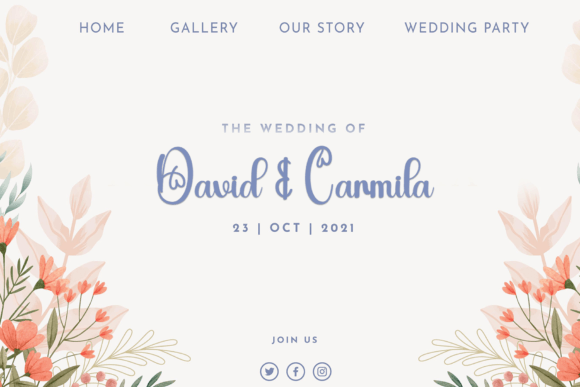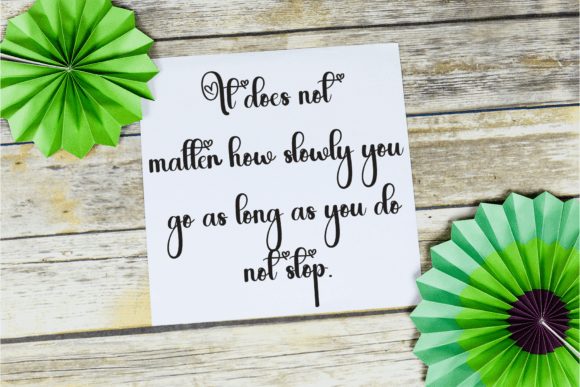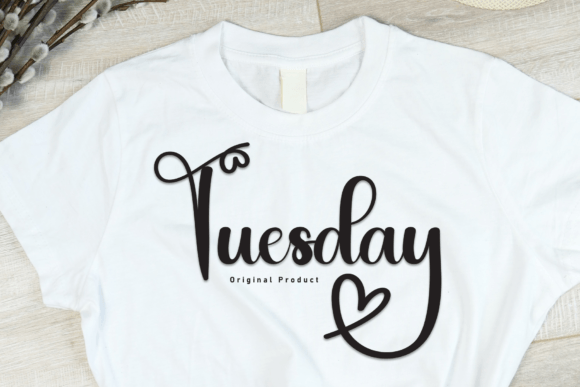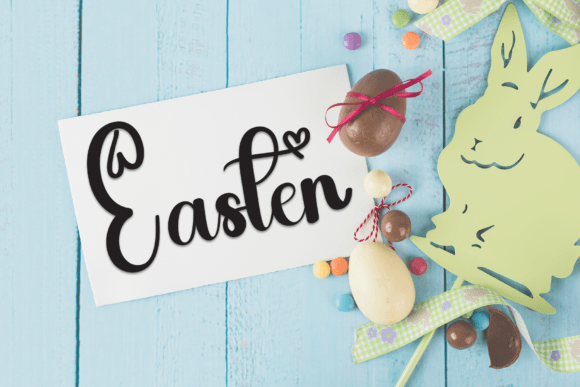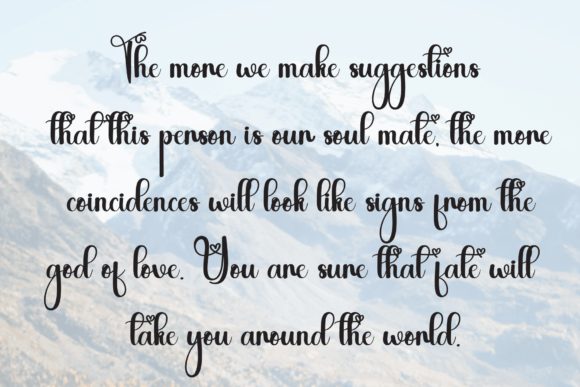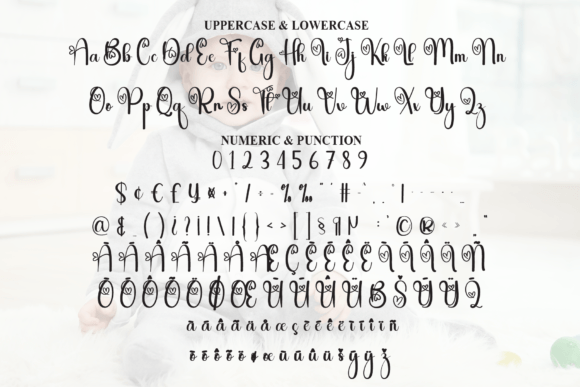
Designing with a Personal Touch: The Magic of Cute Baby Font
As I sat at my desk, brainstorming ideas for a friend’s baby shower invitation, I found myself scribbling down doodles and playfully testing out different fonts. The goal was to capture the whimsical and joyful spirit of the new addition to the family. It was then that I stumbled upon the perfect font to bring my design to life – the adorable Cute Baby Font.
This sweet and friendly handwritten display font is more than just a pretty face; it’s the perfect tool for adding a fun and playful touch to any design project. Whether you’re creating wedding invitations, cards, or any other design that needs a dash of personality, Cute Baby Font is sure to bring a smile to your recipient’s face. Its versatility and charm make it an invaluable asset for designers looking to add a personal touch to their work.
Cute Baby Font Key Features
- Unique Characteristics: Cute Baby Font features adorable and playful characters, including baby animals, toys, and other whimsical elements, making it perfect for creating child-friendly designs and content.
Cute Baby Font Review
I recently had the chance to play around with the Cute Baby Font, and here’s my honest take on it.
- The font is undeniably adorable, making it perfect for projects that need a playful touch.
- The characters are well-designed, with each letter and symbol carefully crafted to evoke a sense of cuteness.
- The font is highly customizable, allowing you to adjust the size, color, and spacing to fit your design needs.
- The font is available in a range of weights, from light to bold, giving you flexibility in your design choices.
- The font may not be suitable for formal or professional projects, as it can come across as too childish.
- The font may not be legible at very small sizes, so it’s best to use it at larger font sizes for optimal readability.
- The font is not ideal for body text, as it can be too ornate and distracting for long blocks of text.
The Cute Baby Font is a fun and playful font that’s perfect for projects that need a lighthearted touch. While it may have some limitations, it’s a great choice for designs that require a sense of whimsy and cuteness. I would definitely use it again in the right project, but it’s not a font I would reach for in every situation.
Tips for Getting the Most Out of Cute Baby Font
Use Cute Baby Font for creating invitations, party decorations, and other baby-related projects.
Pair the font with pastel colors and cute illustrations for a cohesive look.
Cute Baby Font is perfect for:
Creating baby shower invitations and decorations.
Designing baby-themed social media graphics and posts.
Developing children’s book covers and illustrations.